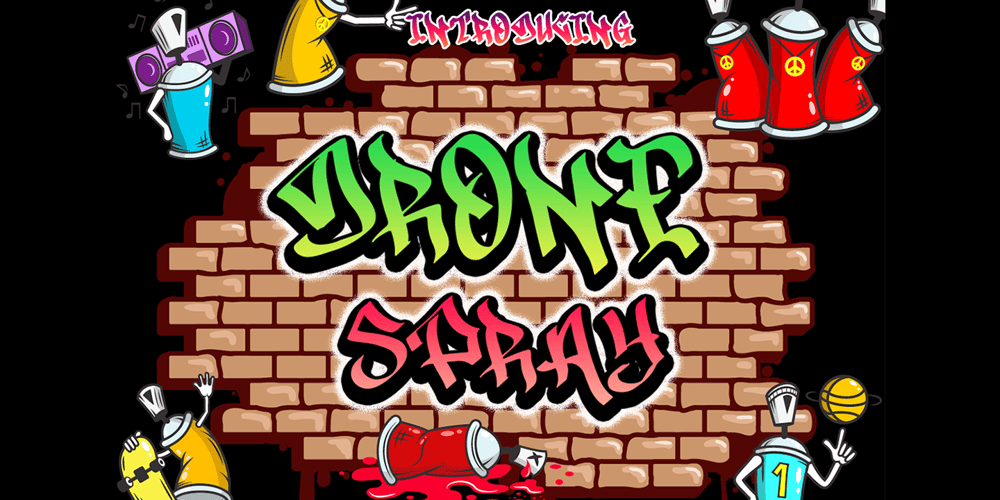
Drone Spray Font Family was designed by Sarwo Edhi Prayitno and published by Haksen. Drone Spray contains 1 styles and family package options. “Drone Spray” is a stylish modern graffiti font with casual quirky style. It is perfect for branding, promotion, product packaging, t-shirt and other needs.You will get full set of lowercase and uppercase letters, numerals and punctuation, multilingual symbols, ligatures and extra swashes that giving realistic graffiti style.n order to use the beautiful stroke, you need a program that supports features such as Adobe Illustrator, Adobe Photoshop, Adobe Indesign and Corel Draw.Thanks and have a wonderful day,Haksen